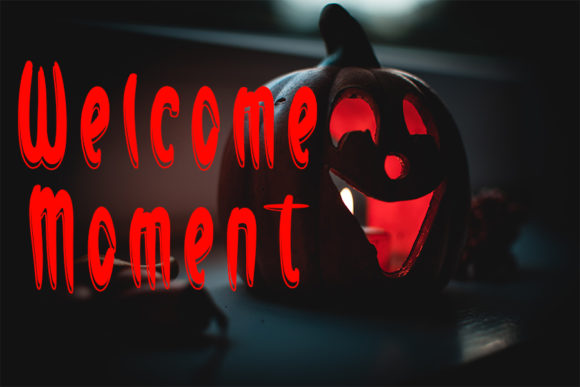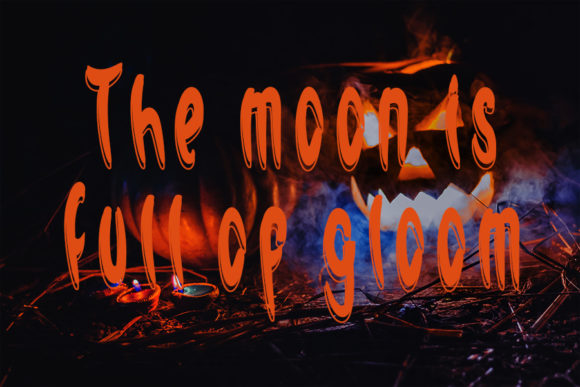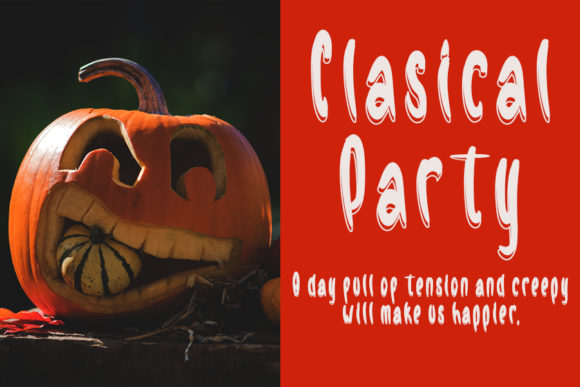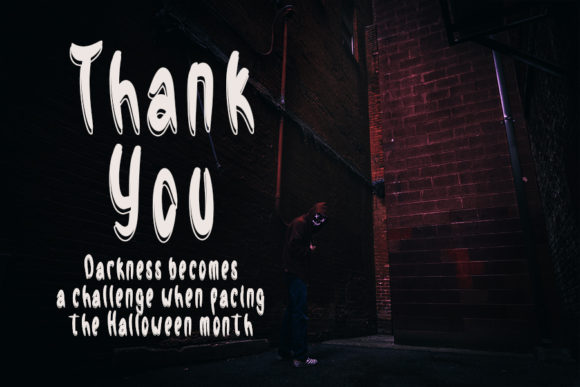
Introduction to Mistical Halloween Font Font
Fonts play a crucial role in design, and the Mistical Halloween Font font is a typeface that brings both character and versatility to any project. Whether you’re working on a branding project, a website, or a print design, the Mistical Halloween Font font offers a unique style that can elevate your work.
Mistical Halloween is a spooky and casual handwritten font with an incredibly friendly feel.
Take your Halloweenβs crafting projects to the next level with this amazing font .
Key Features of Mistical Halloween Font Font
Why Choose Mistical Halloween Font Font?
The Mistical Halloween Font font is more than just a typeface β it’s a design tool that helps you communicate your message with style and clarity. Its unique character set and versatile design make it suitable for a wide range of applications, from elegant invitations to bold headlines.
With its carefully crafted letterforms and balanced proportions, the Mistical Halloween Font font ensures readability and visual appeal across all mediums.
What makes Mistical Halloween Font font special?
The Mistical Halloween Font font stands out with its unique design, exceptional readability, and versatility across various design applications.